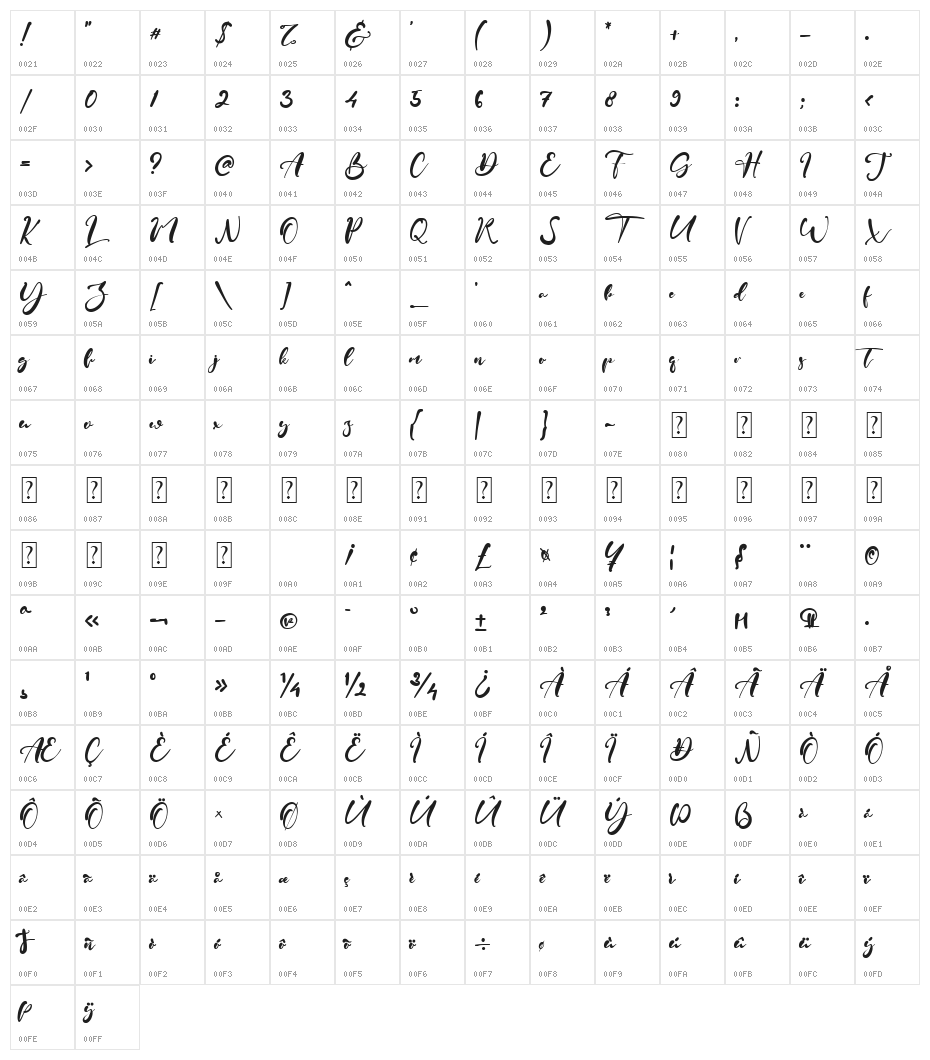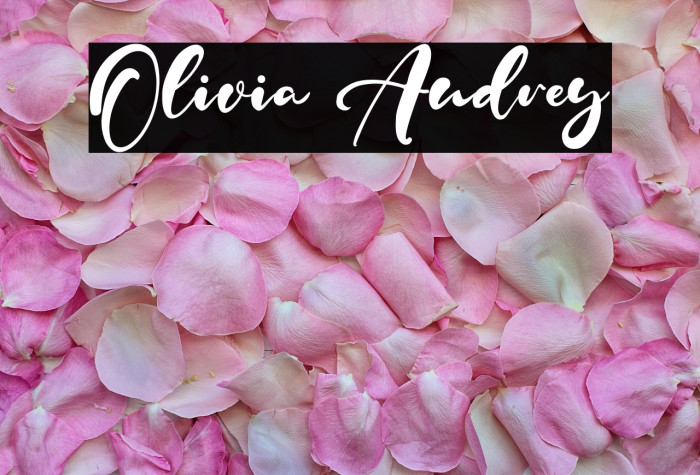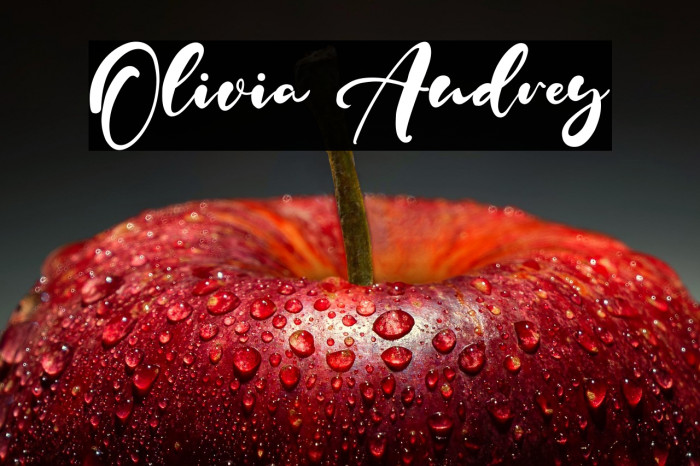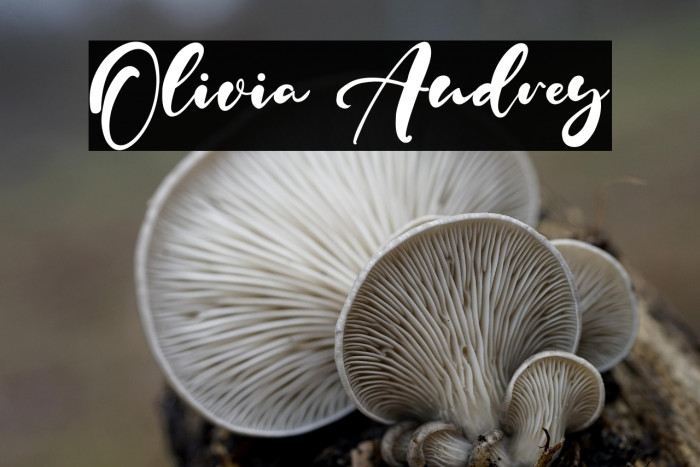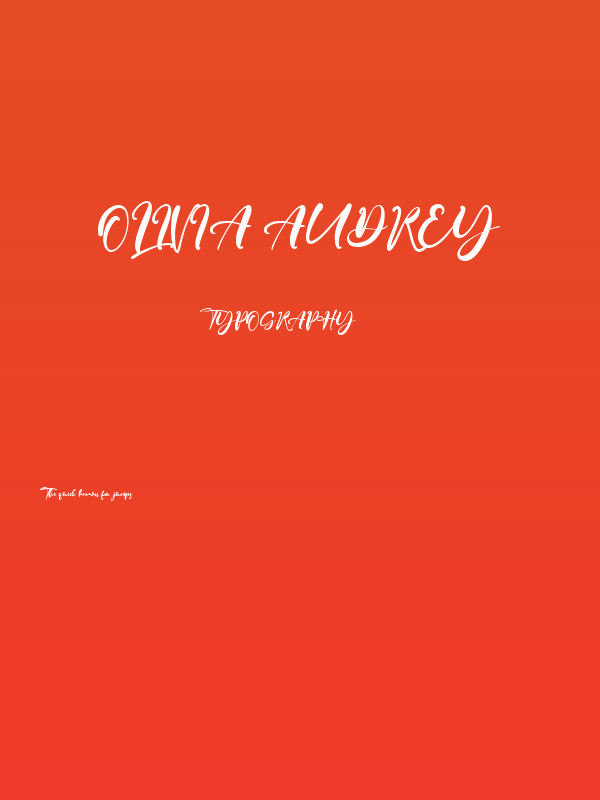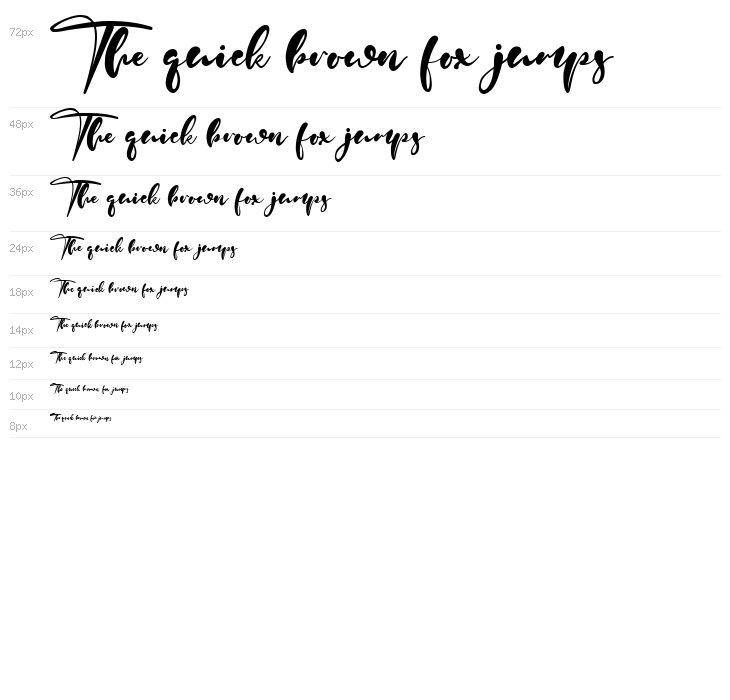
Olivia Audrey Font
This font exudes a charming and elegant script style, characterized by its flowing, cursive letters that mimic the fluidity of handwriting. The uppercase letters are bold and sweeping, with decorative flourishes that add a touch of sophistication. The lowercase letters maintain a consistent style, with smooth connections and a graceful appearance. The numerals are clear and stylish, complementing the overall aesthetic. Special characters are thoughtfully designed, integrating seamlessly with the rest of the font. This font's artistic flair makes it ideal for projects that require a personal and creative touch.